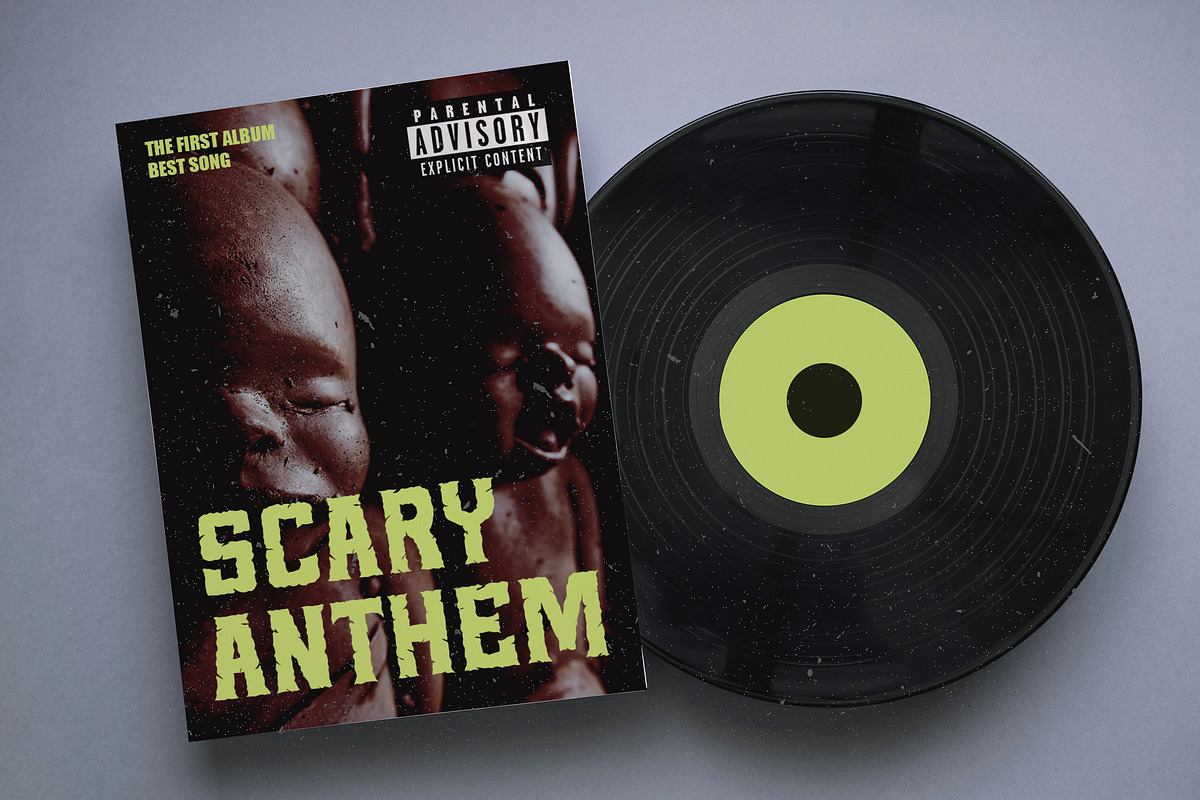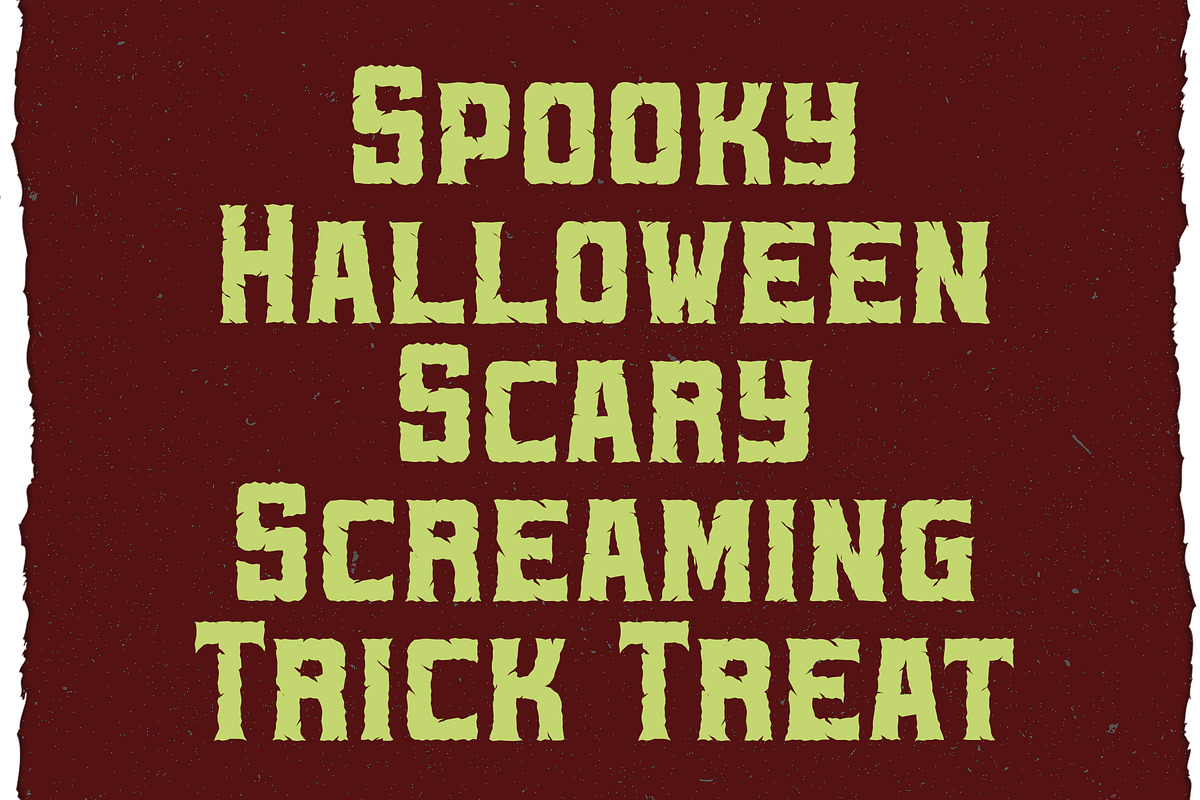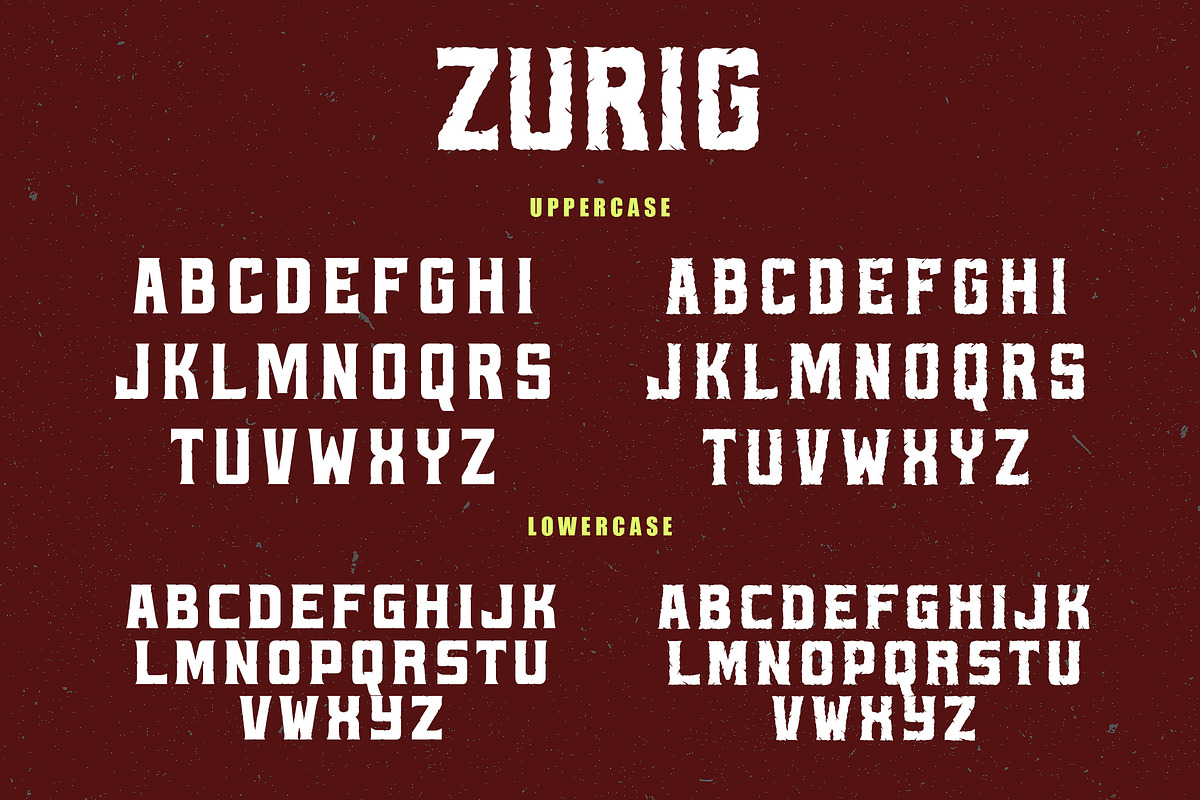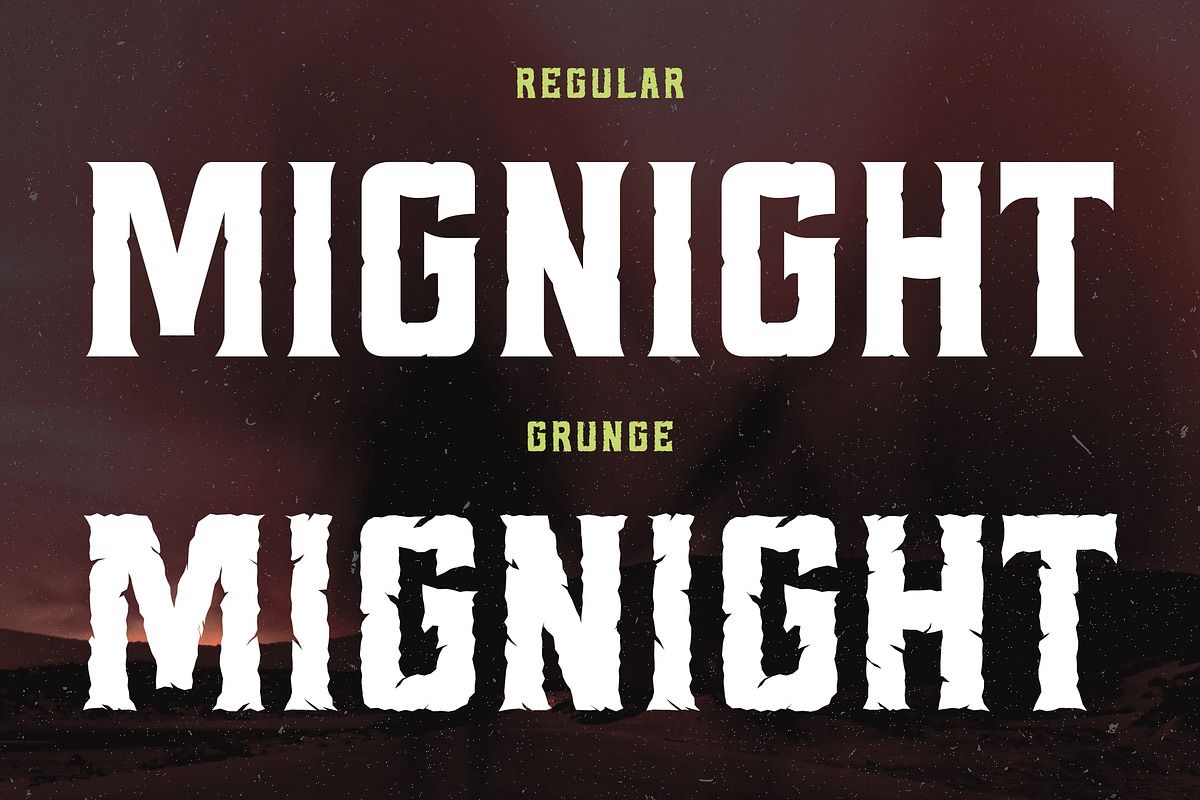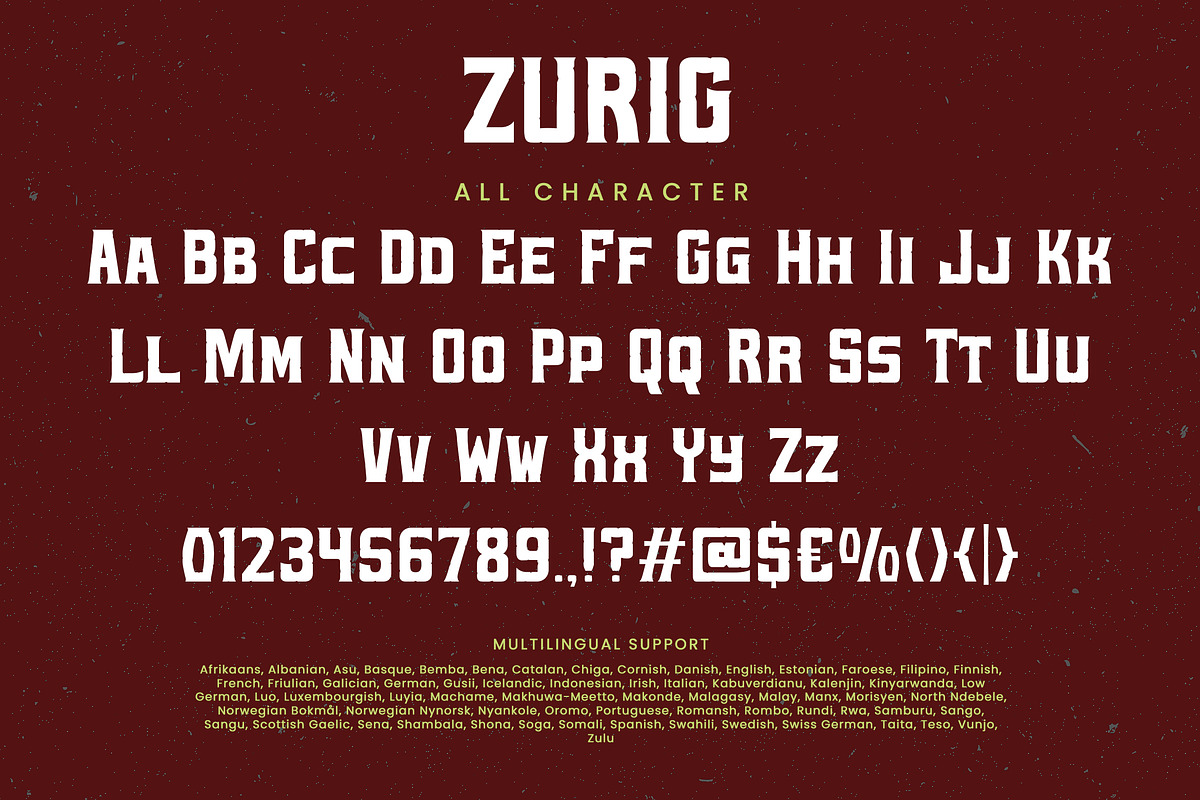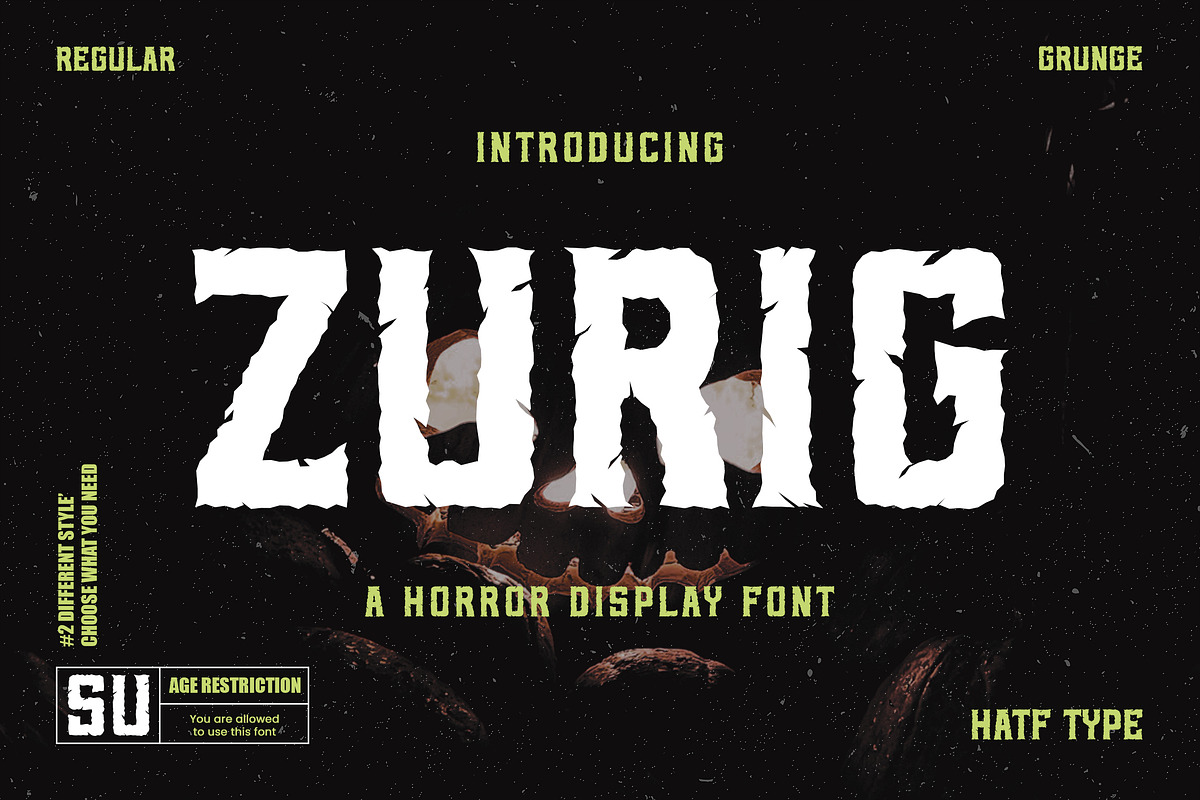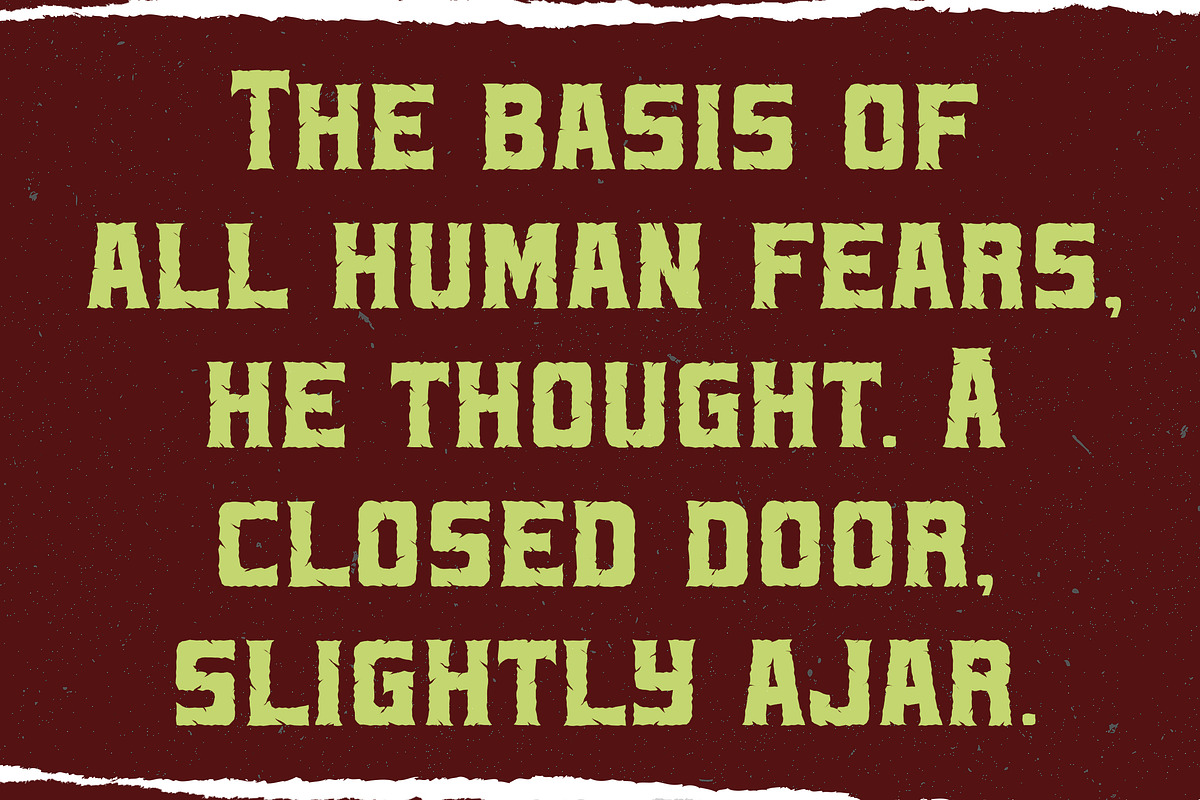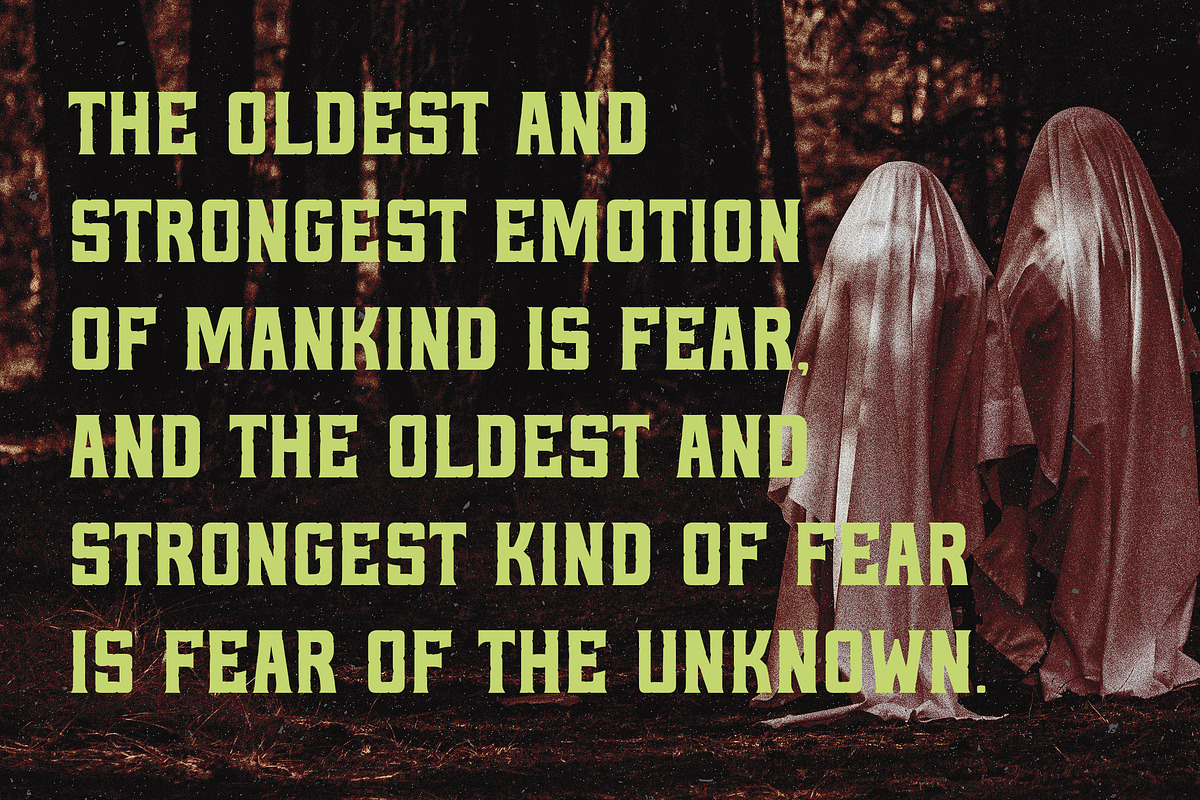
Zurig
ZURIG is a Horror Display Font that has two styles, Regular and Grunge. The Regular style is specifically designed to create a spooky and frightening atmosphere. With bold lines, sharp angles, and details inspired by classic horror elements, this font is perfect for horror movie titles, Halloween event posters, or any other design project that needs a spooky touch. The distorted and irregular shape of the letters gives an uncomfortable and eerie impression, reinforcing the horror theme being conveyed.
Meanwhile, the Grunge style is a variant of the horror font that adds grunge elements and dirty textures to the design. The characters appear scratched, cracked, or streaked, creating a rough and worn visual effect. These elements create a sense of chaos and destruction, perfect for designs that want to convey an apocalyptic, dystopian or more intensely eerie feel. This font is ideal for projects that want a more experimental and bold look, such as music album covers, independent film posters, or alternative graphic designs.